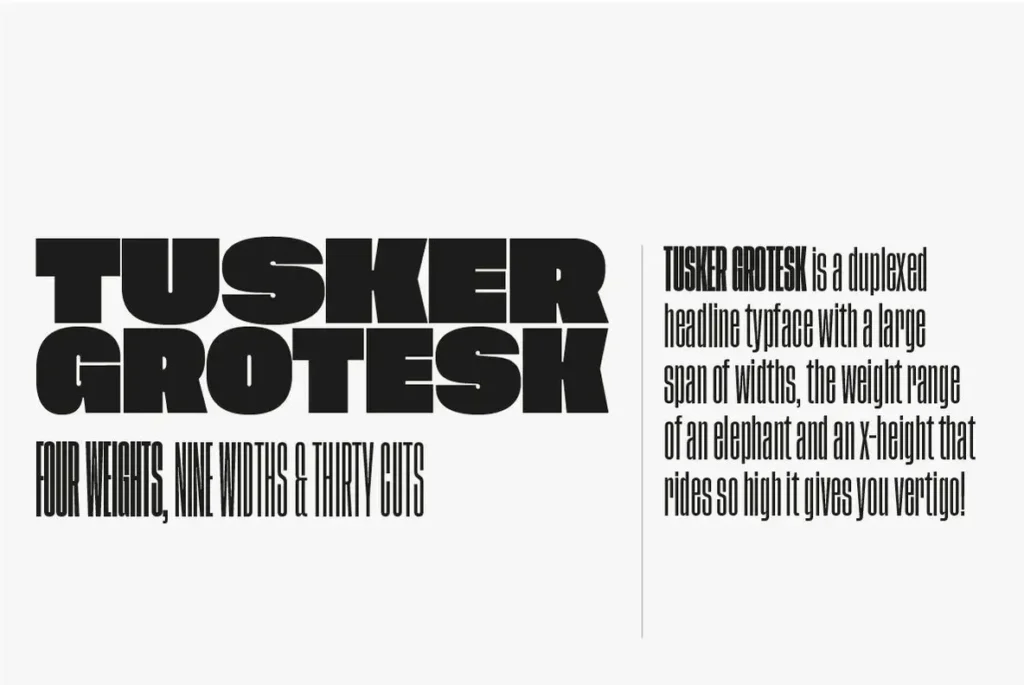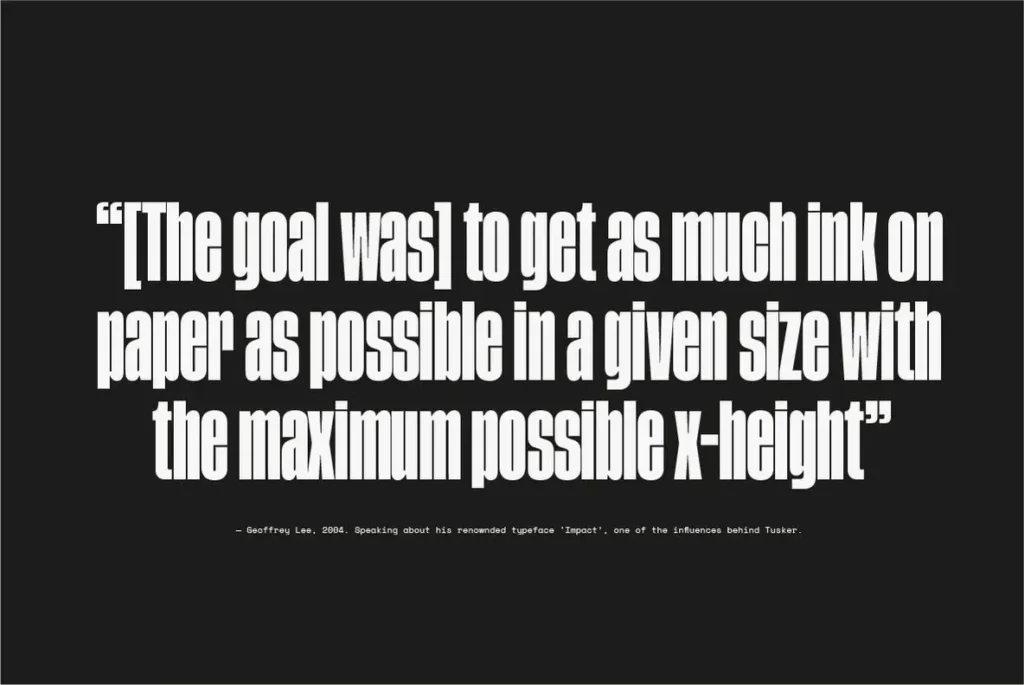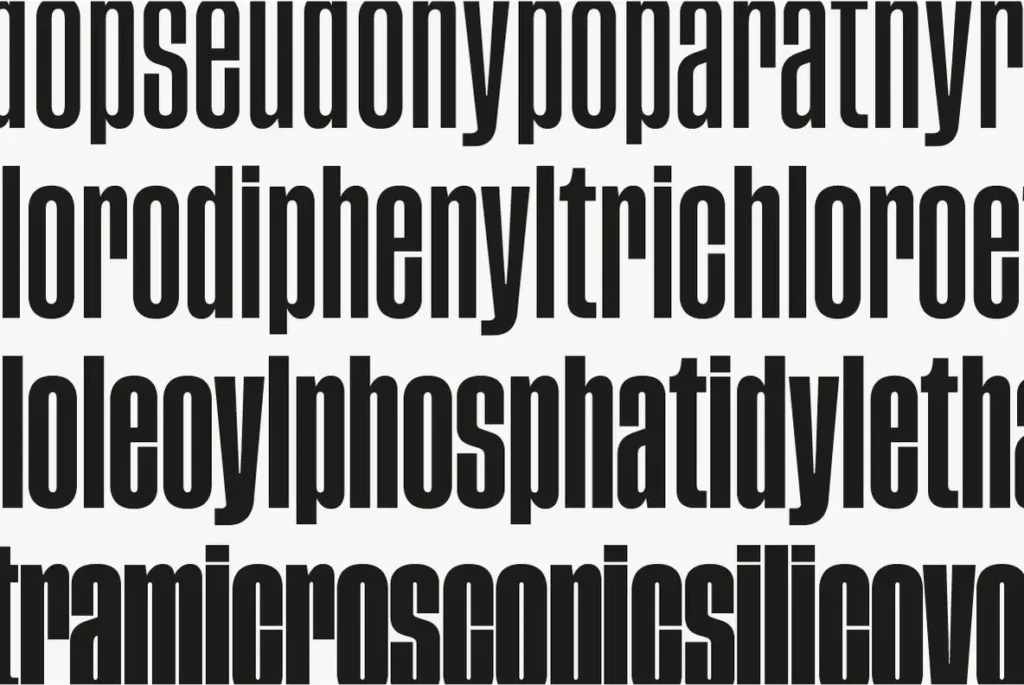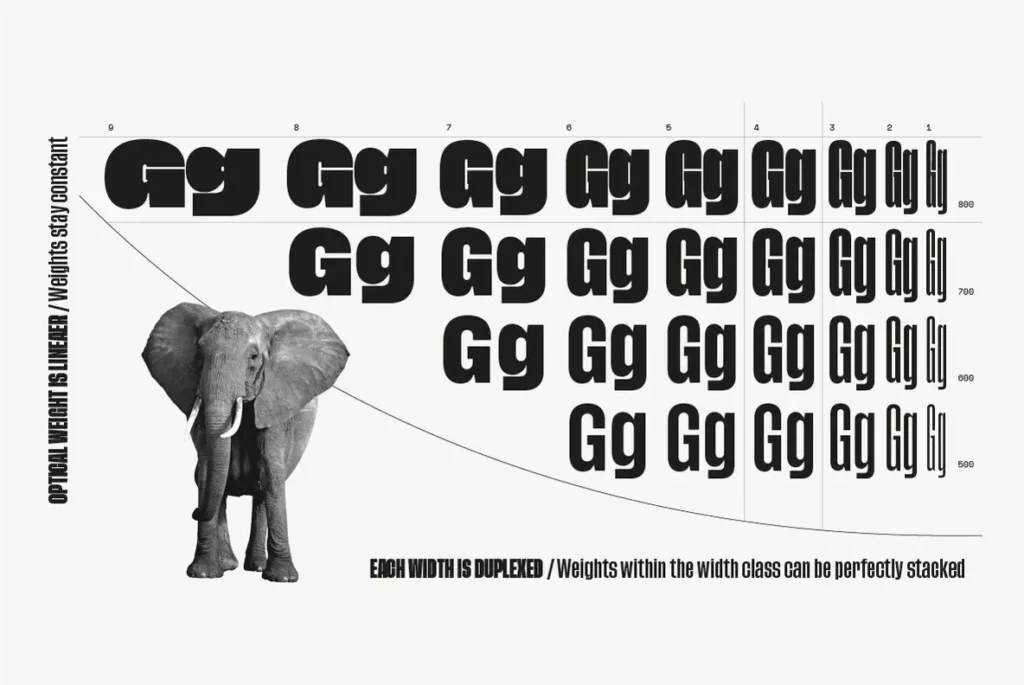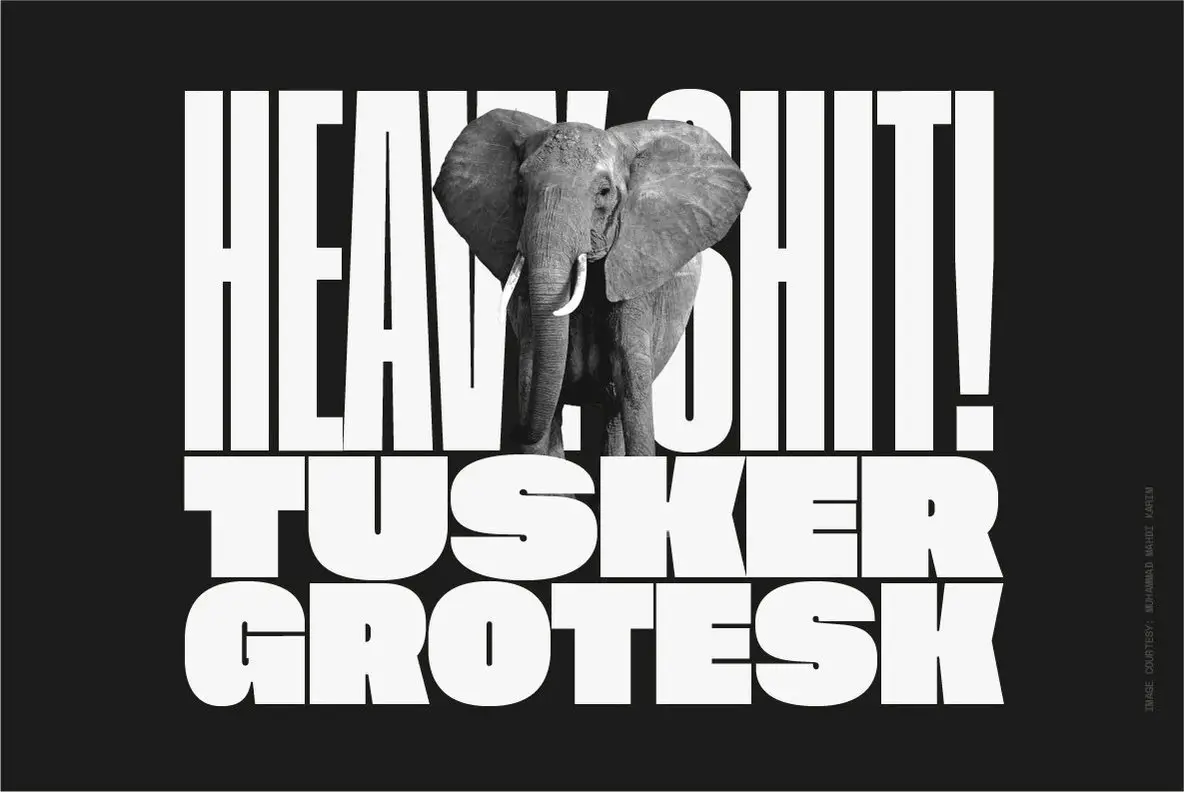
Tusker Grotesk Font Family
Tusker Grotesk is a powerful sans serif font designed specifically for headlines and bold visual impact. Inspired by classic postwar typefaces such as Impact and Haettenschweiler, this typeface features an extremely high x-height that maximizes readability and presence. Its strong, condensed shapes make it perfect for posters, branding, editorial layouts, and any design that needs a modern and commanding headline style.
On the narrower side of the spectrum, Tusker Grotesk draws influence from classic grotesk font traditions, including designs like Folio Extra Condensed and Placard Condensed. These inspirations are visible in its flat terminals and tight apertures, which create a clean and structured look. As the widths expand, the design gradually adopts elements from gothic-style sans lettering, giving the typeface a balanced mix of historical inspiration and modern versatility.
Tusker Grotesk is a versatile family font featuring multiple widths that are duplexed and stackable, making it highly flexible for designers. This structure allows seamless combinations across layouts, making it ideal for headlines, logos, editorial design, and bold typographic compositions. With extended Latin language support covering Western, Central, and Eastern European languages, Tusker Grotesk is a reliable choice for international design projects.